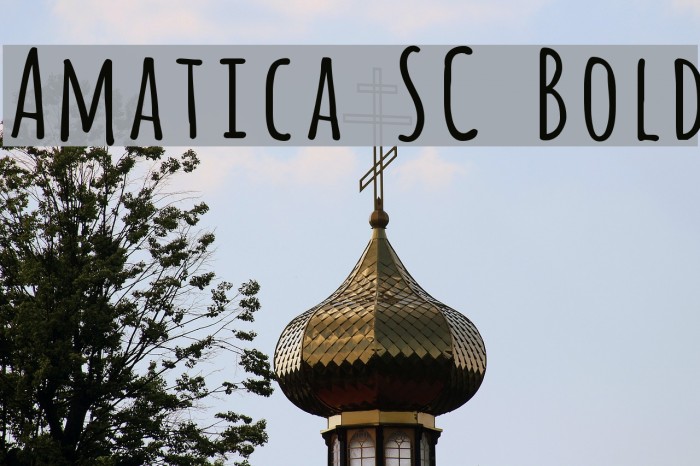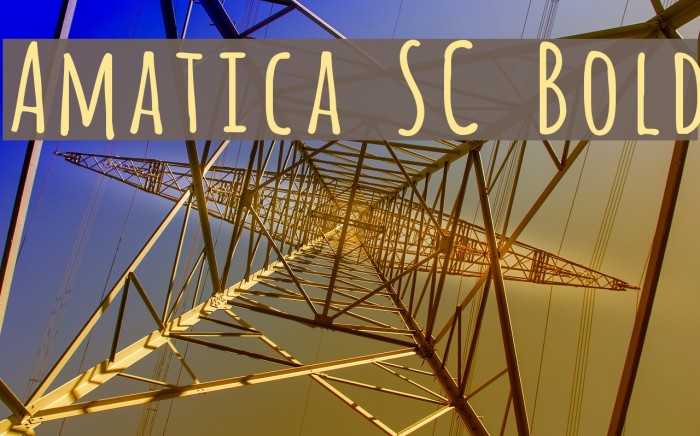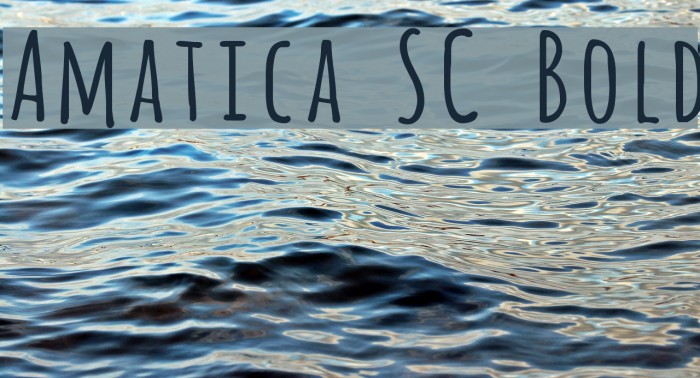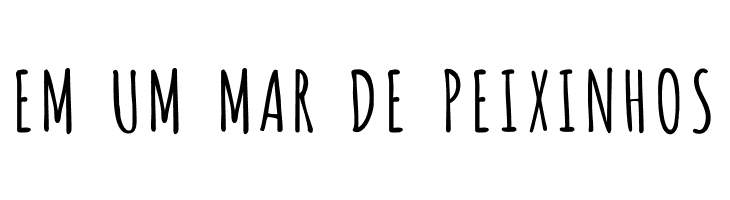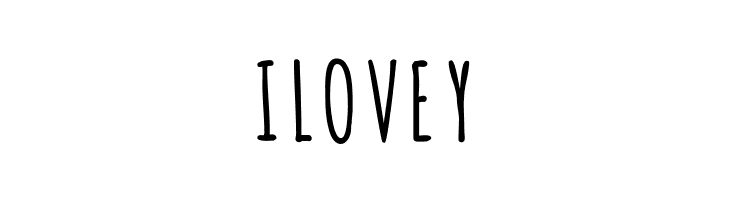
Amatica SC Bold Font
Amatica SC Bold Description
This font features a playful and informal style with a handwritten appearance. The characters are tall and narrow, giving a sense of height and elegance. The strokes are uneven, adding to the casual and friendly feel. The uppercase and lowercase letters maintain a consistent style, with slight variations that enhance the hand-drawn effect. The numbers and special characters follow the same design principles, ensuring a cohesive look across all elements. This font is ideal for projects that require a personal touch or a whimsical aesthetic.
| Width | Condensed |
| Overall Style | Casual, Playful |
| Use Case | Headlines, Informal text, Creative projects |
| Proposed Projects | Great for greeting cards, children's books, casual branding, and creative posters. |